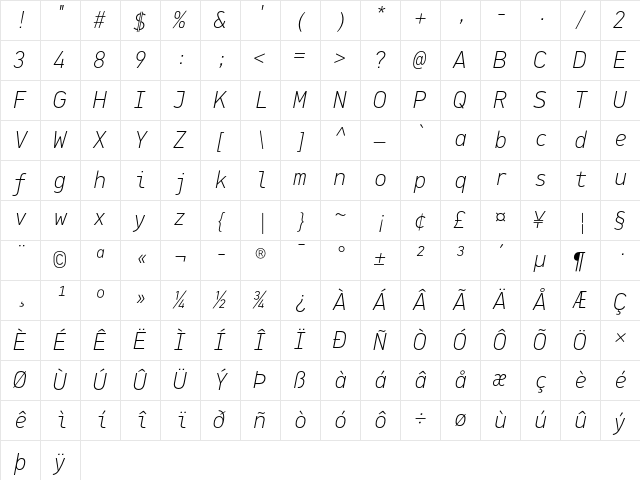
Complete PFDinMono ExtraLight Italic glyph index. Displaying only characters natively supported by PFDinMono ExtraLight Italic font.
PFDinMono ExtraLight uses fixed-width spacing throughout, giving it the structured, systematic character associated with coding environments and technical documentation. The slanted form adds forward momentum and visual energy. Its slender proportions lend an understated elegance to any composition.